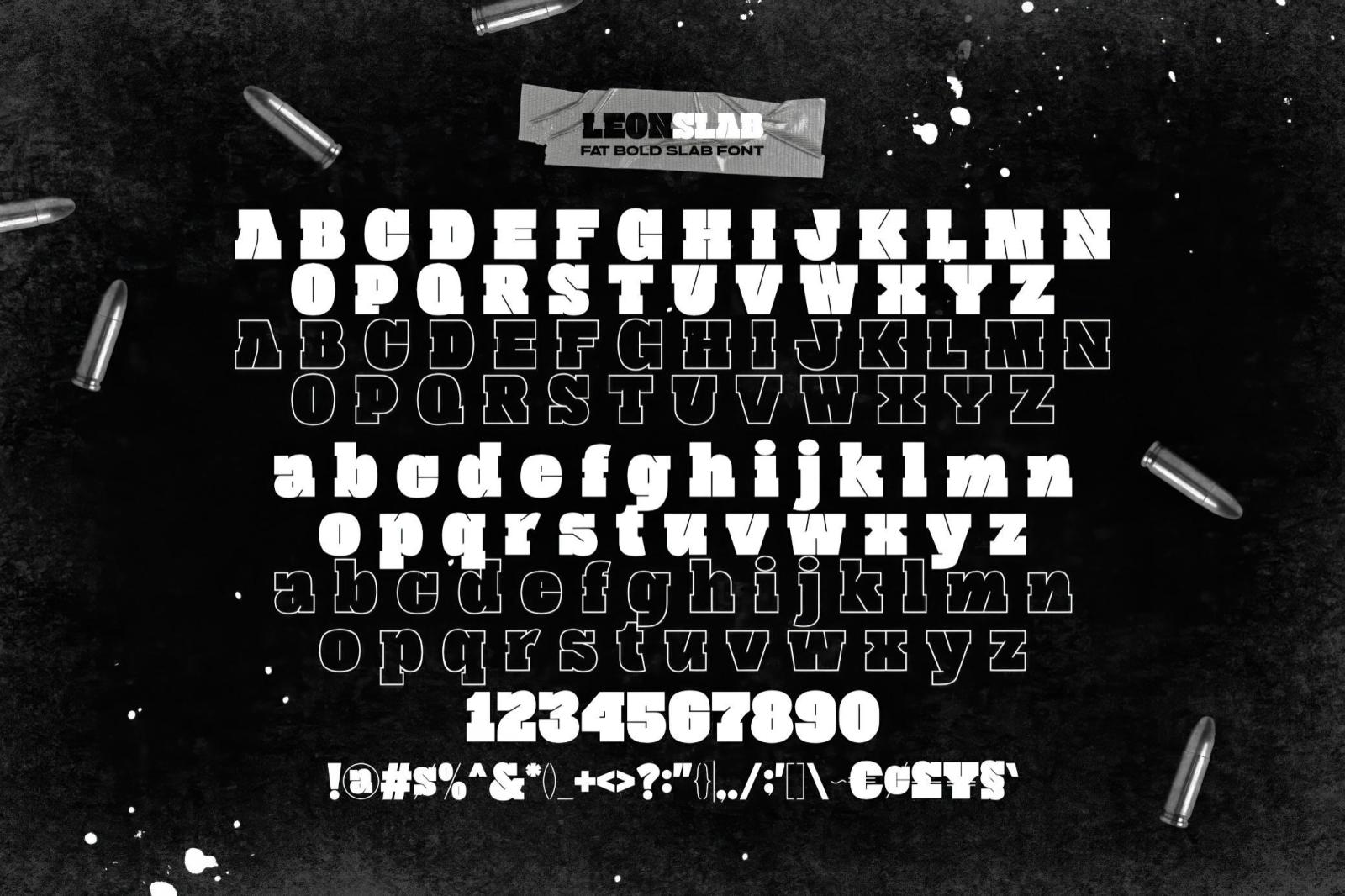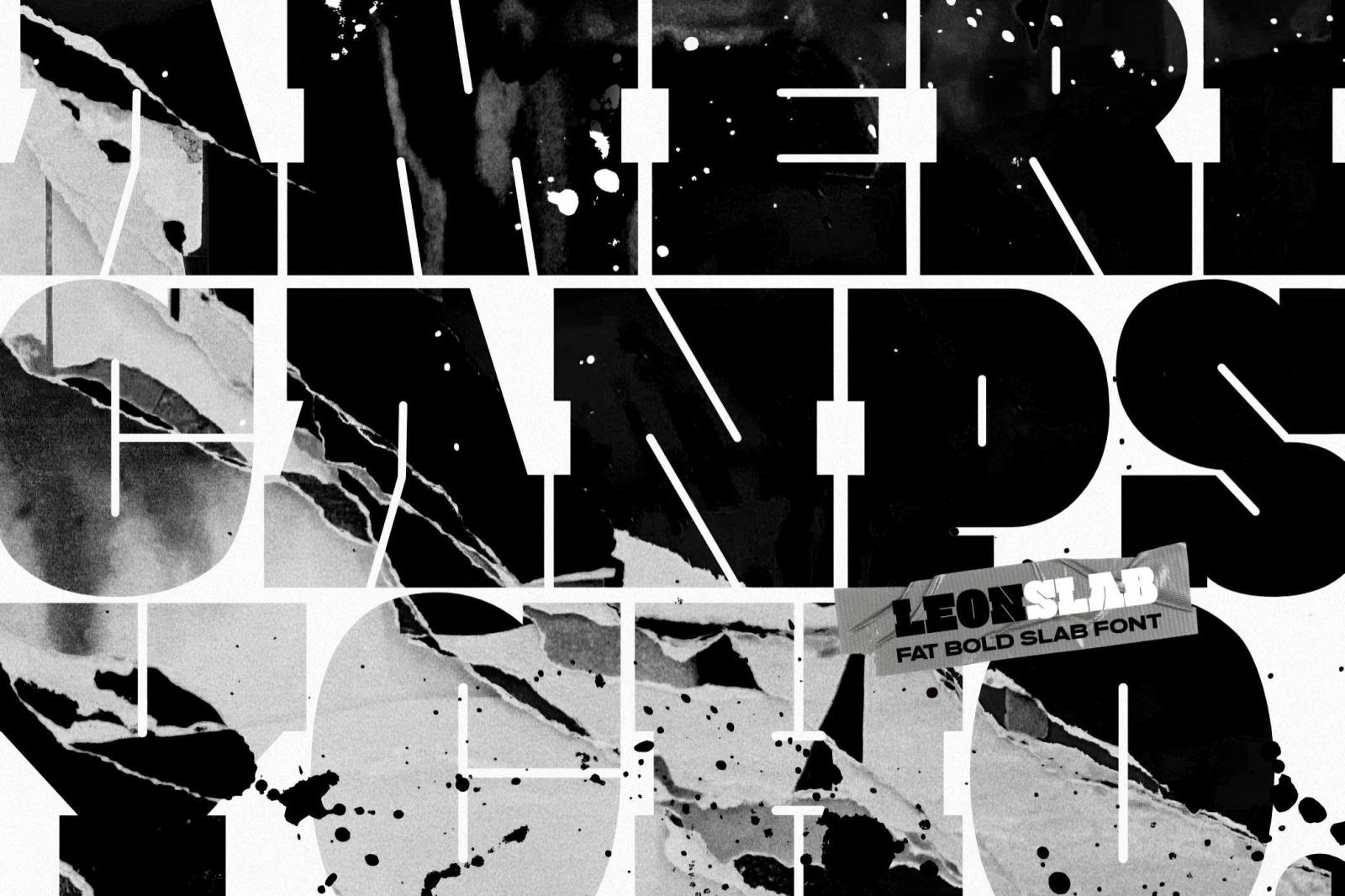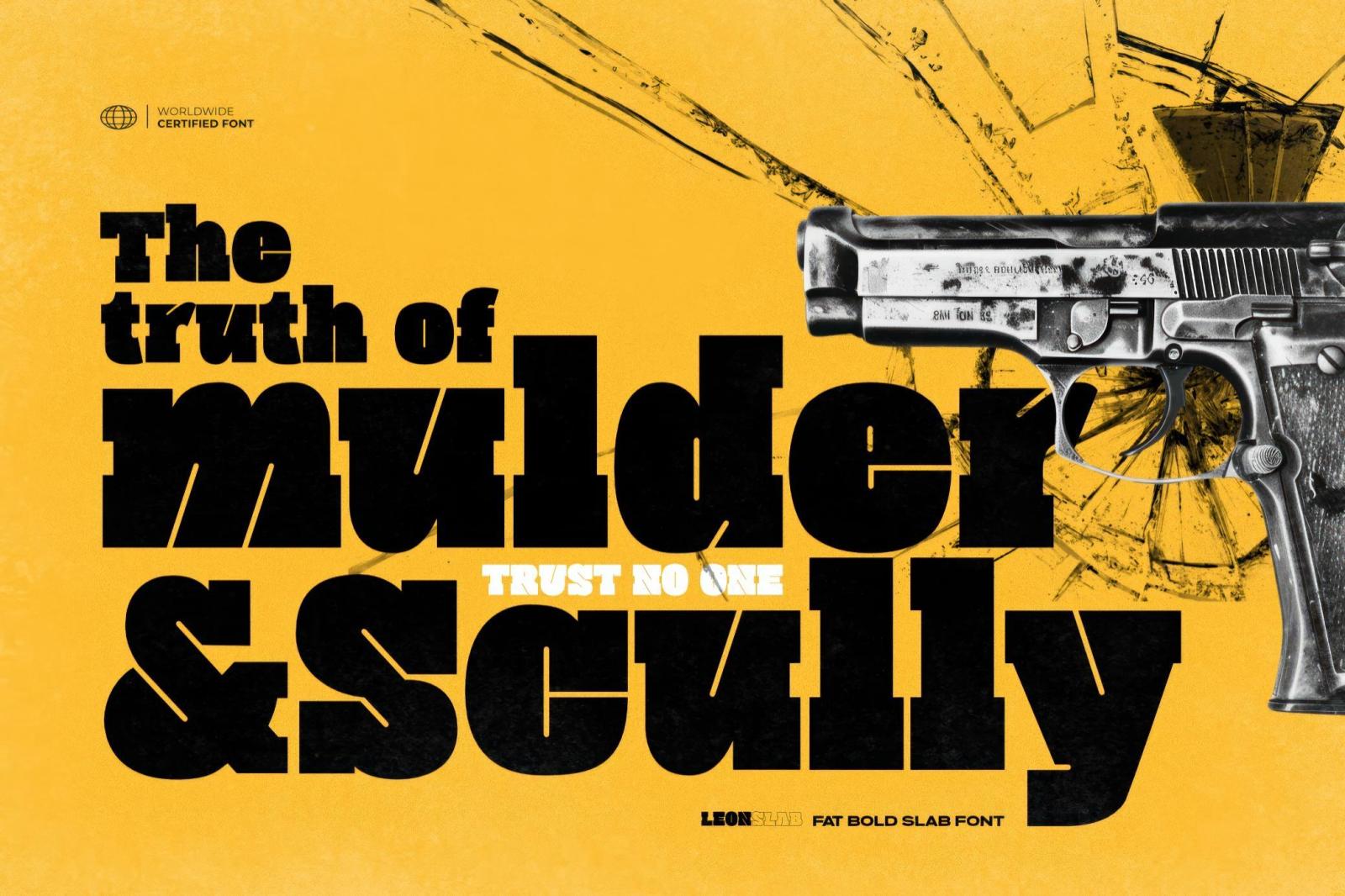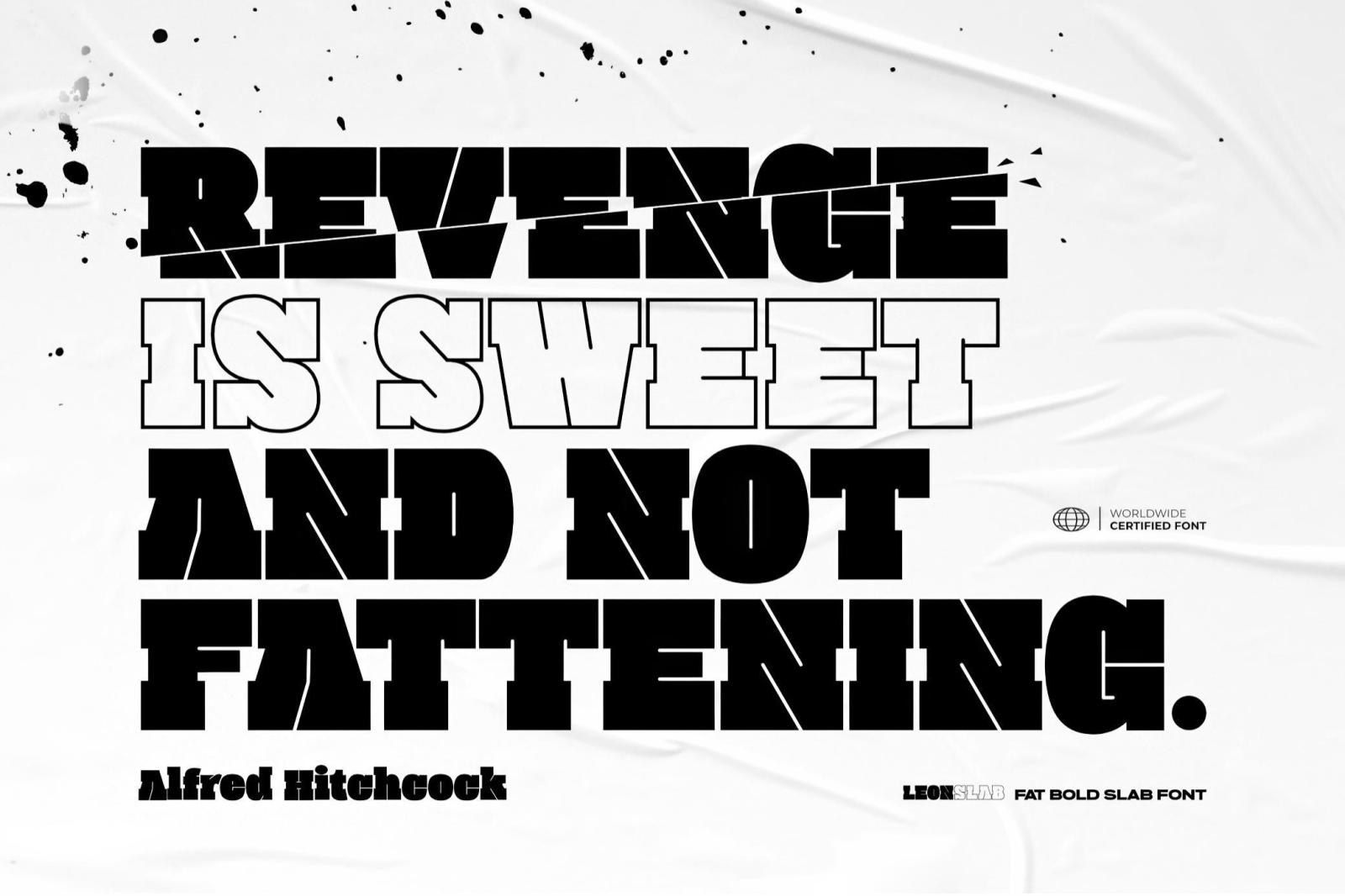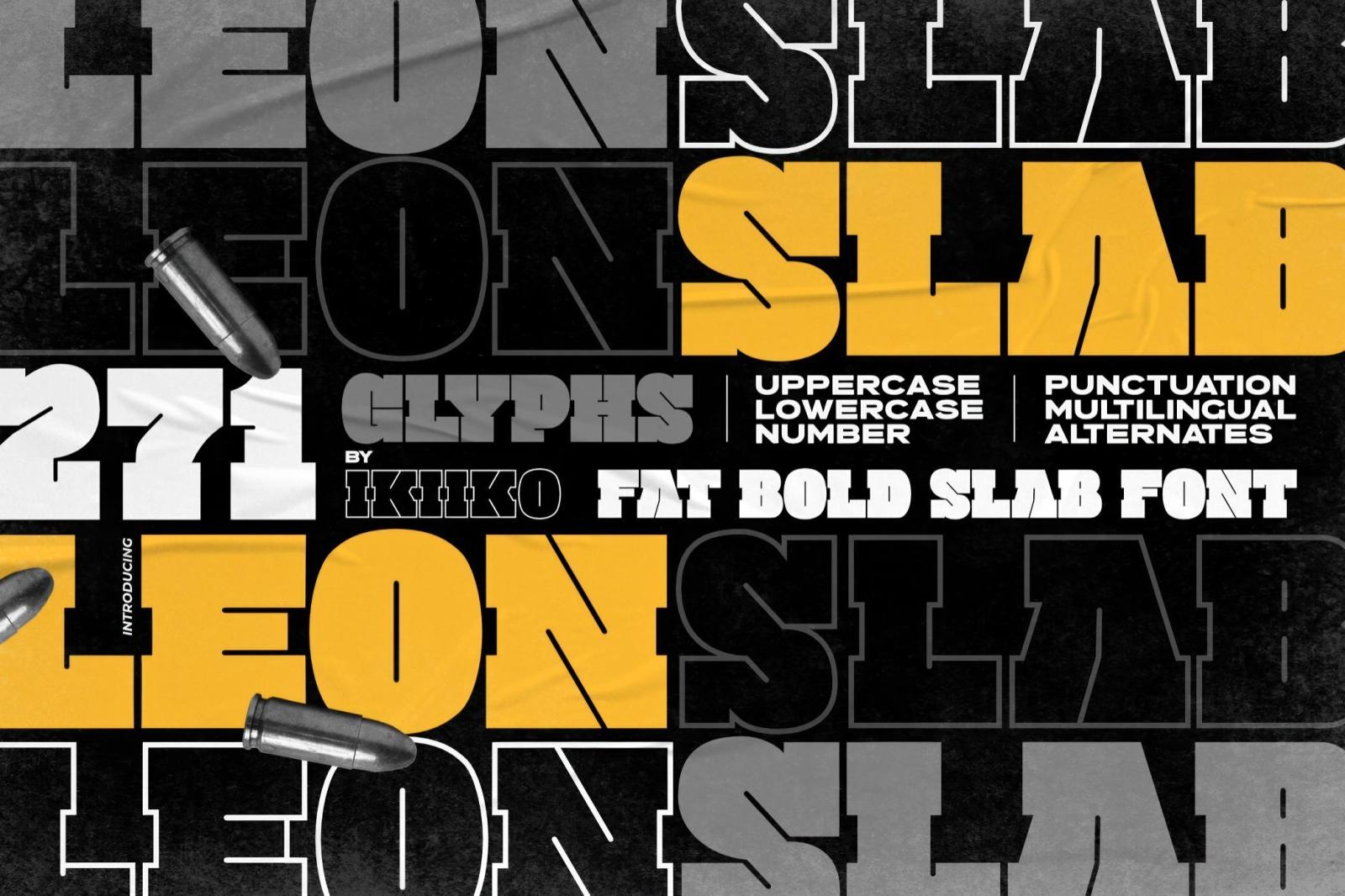
Leon Slab — Fat Font
Leon Slab draws inspiration from the robust aesthetics of classic print media. It comes with a complete set of uppercase and lowercase letters, numbers, punctuation, and versatile alternates. Each character brings a powerful voice to your designs, and two featured styles — bold and outlined — allow you to accommodate different design requirements. Finally, the thick strokes and geometric forms make it an ideal pick for headlines, posters, branding, and editorial layouts.